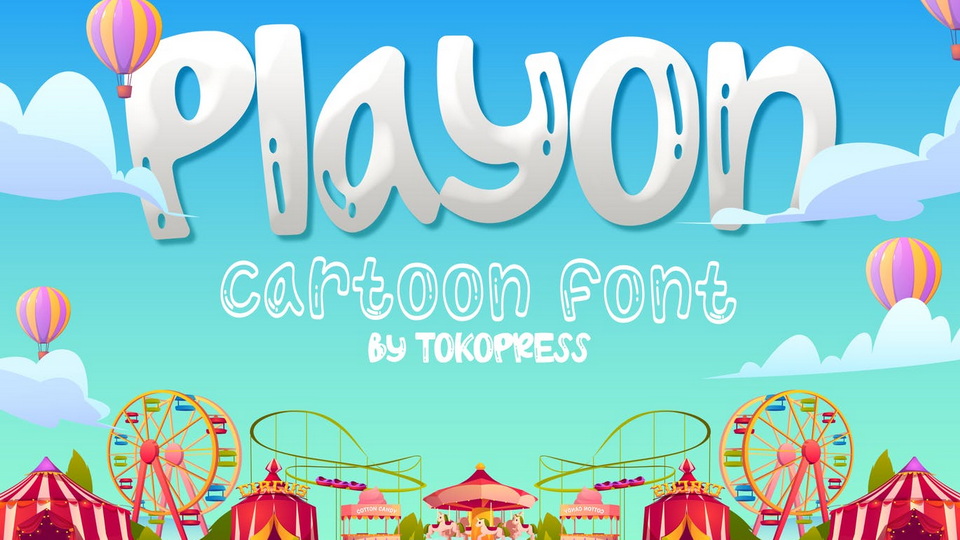
Download Playon font, a funny cartoon kids typeface. The bouncy baseline and fancy playful sans serif shape of Playon will bring a lot of joy to kids hearts.